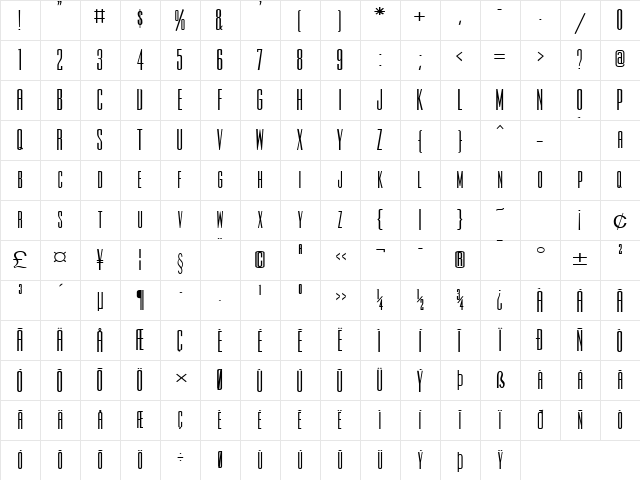
Slim-Jim-Extended Bold
Design Context for Slim-Jim-Extended
Slim-Jim-Extended is a composed and adaptable typeface that performs quietly and consistently across a wide range of design contexts. Its bold stroke weight gives it real presence on the page.
Pro Tip: Use Slim-Jim-Extended in both headline and body roles to test its range before committing to a single application.